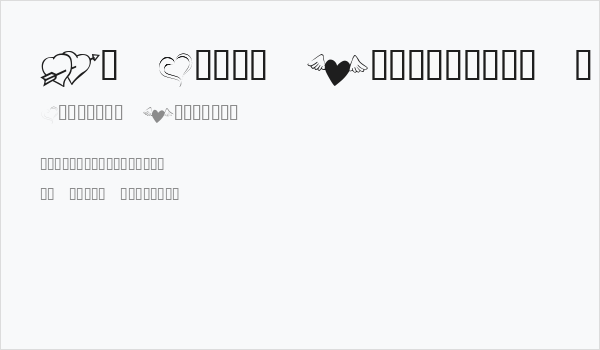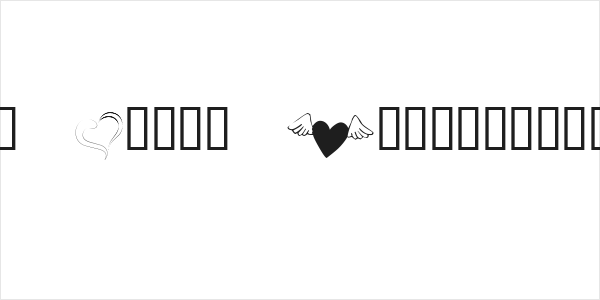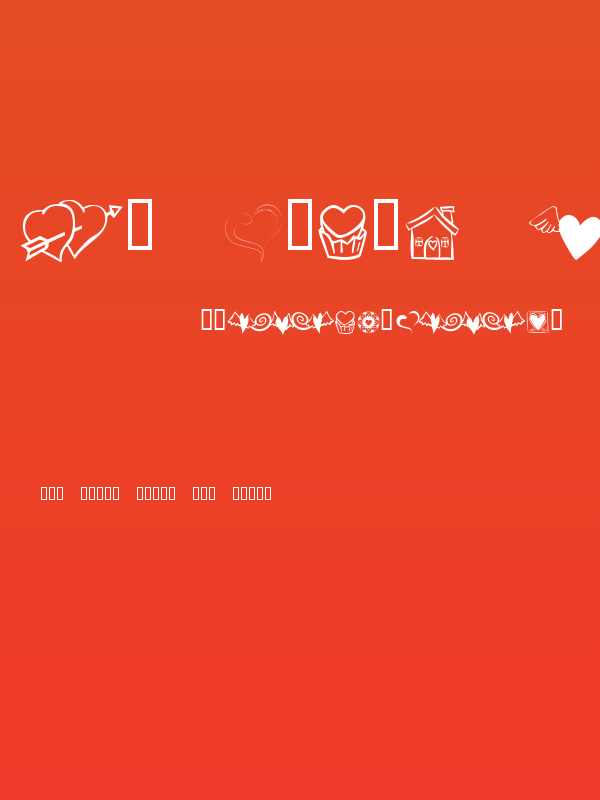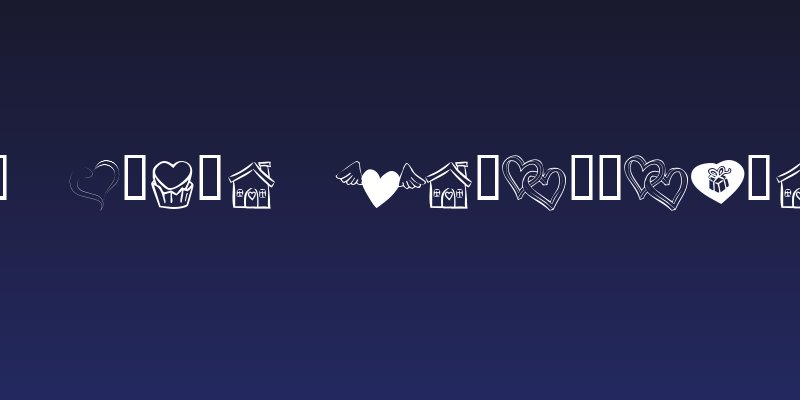
KR Cuori Divertenti 5 Font
KR Cuori Divertenti 5 Description
This font is a playful and decorative collection of heart-themed symbols and icons. It features a variety of heart designs, including hearts with wings, intertwined hearts, and hearts with additional elements like arrows, envelopes, and teddy bears. The style is whimsical and fun, making it ideal for projects that require a lighthearted and romantic touch. The characters are bold and visually striking, with intricate details that add to their charm.
| Use Case | Logos, Decorative elements, Greeting cards |
| Proposed Projects | Ideal for Valentine's Day cards, wedding invitations, romantic event posters, and playful graphic design projects. |